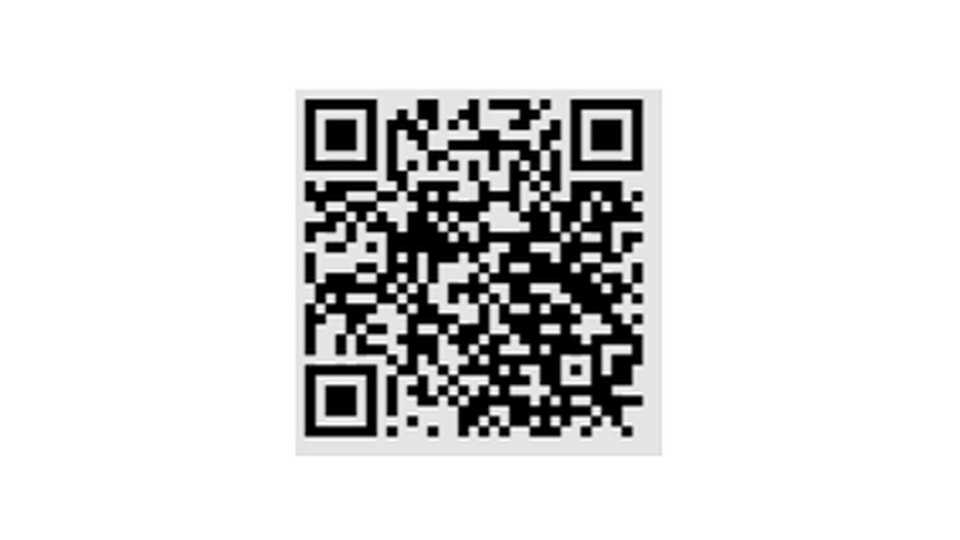
Download QR Code 2D Barcode font, a font that easy to use for encoding your website and other information. It’s a specialized 2D barcode font designed to generate quick-response (QR) codes with precision and reliability.